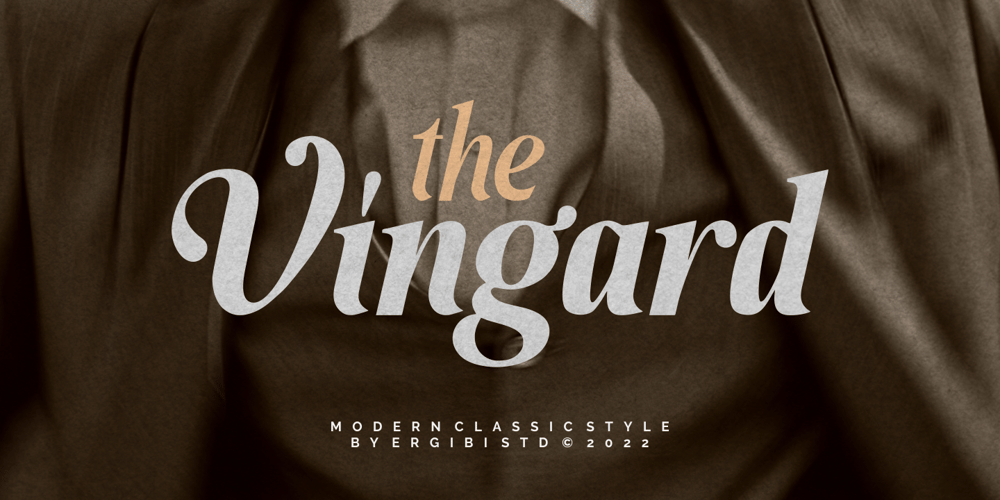
Vingard
Vingard font
Vingard Font Family was designed by Riyadh Rahman and published by Ergibi Studio. Vingard contains 2 styles and family package options. Vingard is a sophisticated serif, The many alternate character swash on serif makes this typeface unique and stands out rather than the regular serif font, perfectly for headlines, logos, posters, packaging, T-shirts,coffee shops, restaurants, magazine’s headers, signs or gift/post cards,cafe’s and weddings or any type of advertising purpose. comes with 2 versions namely Regular and boldWhat’s Included : Standard glyphs Ligatures Alternate Characters International Accent Works on PC & Mac Simple installations If there is a problem, question, or anything about my fonts, don’t hesitate to ask!Big Thanks ~ Ergibi Studio